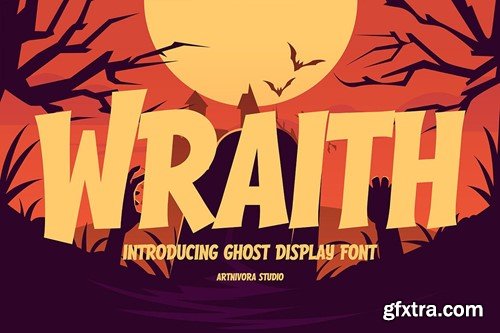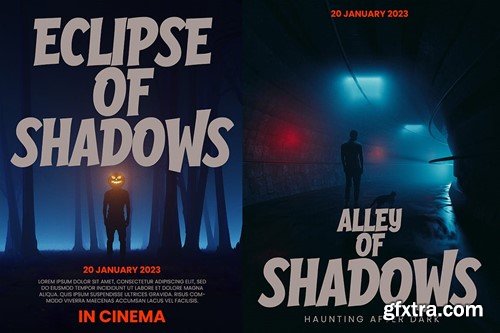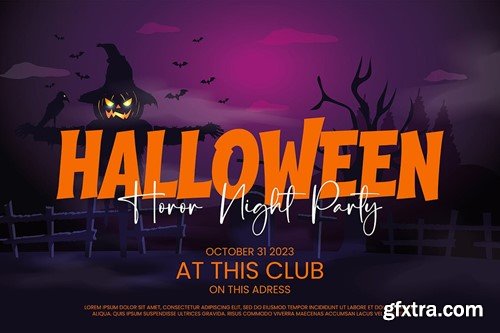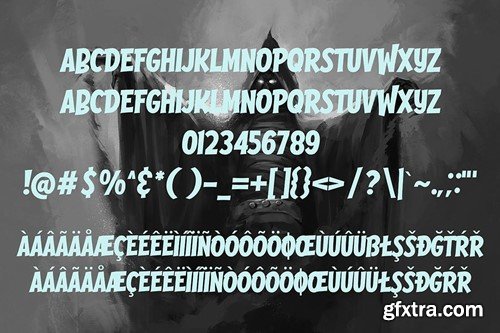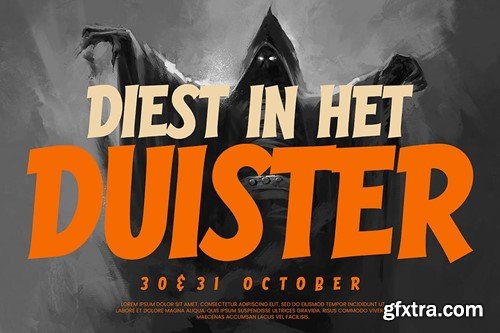
Wraith - Display Font
Introducing Wraith, a simple and display font. So perfect for you who needs a typeface for logo designs, magazine, social media, brochure, and many more. Features Files Includes Thank you for checking and i hope you enjoy it.